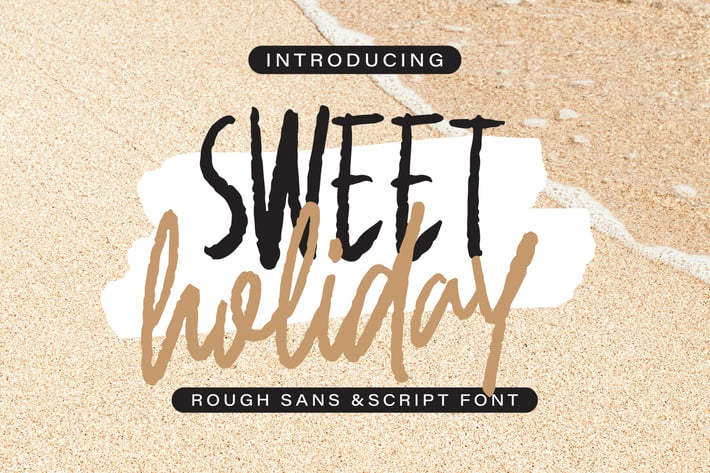
Sweet Holiday - Sans & Script Font
Sweet Holiday - Sans & Script Font contains a lowercase, uppercase, symbol, and also supports multi-language. There’s a lot of ligature in this font. Sweet Holiday - Sans & Script Font also comes with ligatures, stylistic alternates and many more.
this font suitable for fashion, branding, catalog and other design that you want.